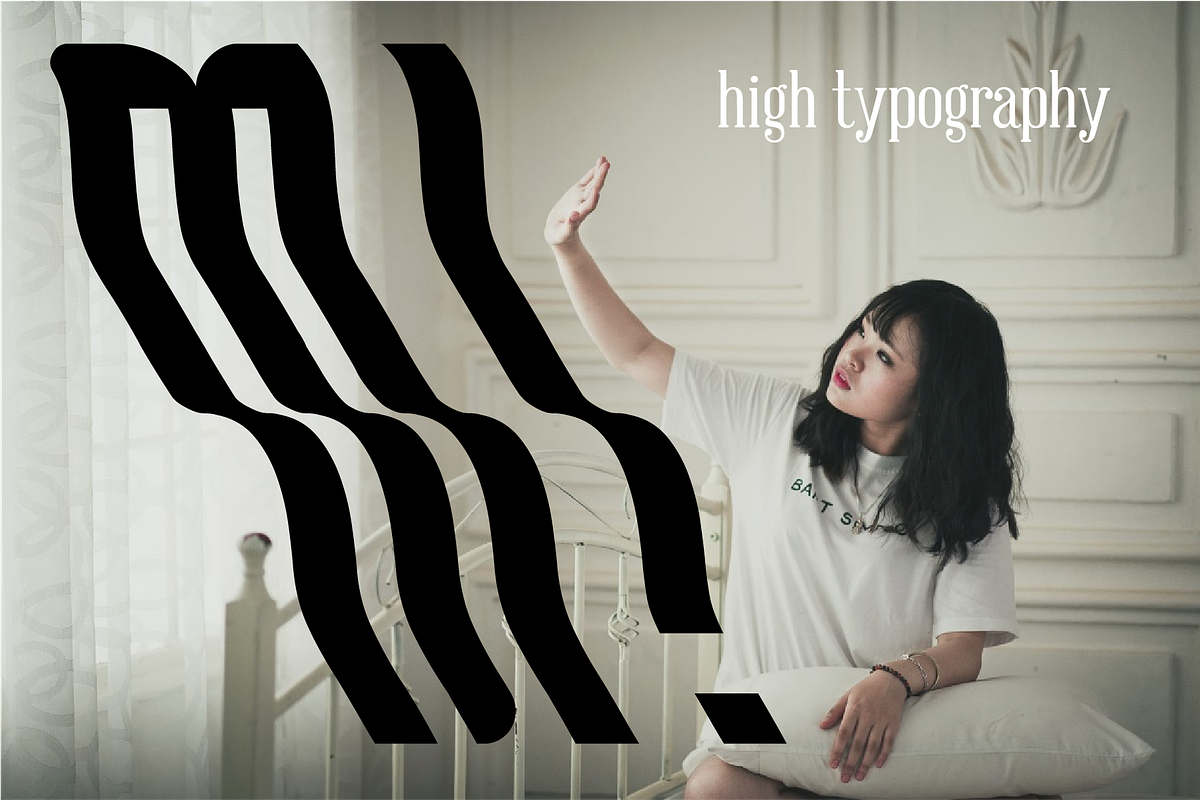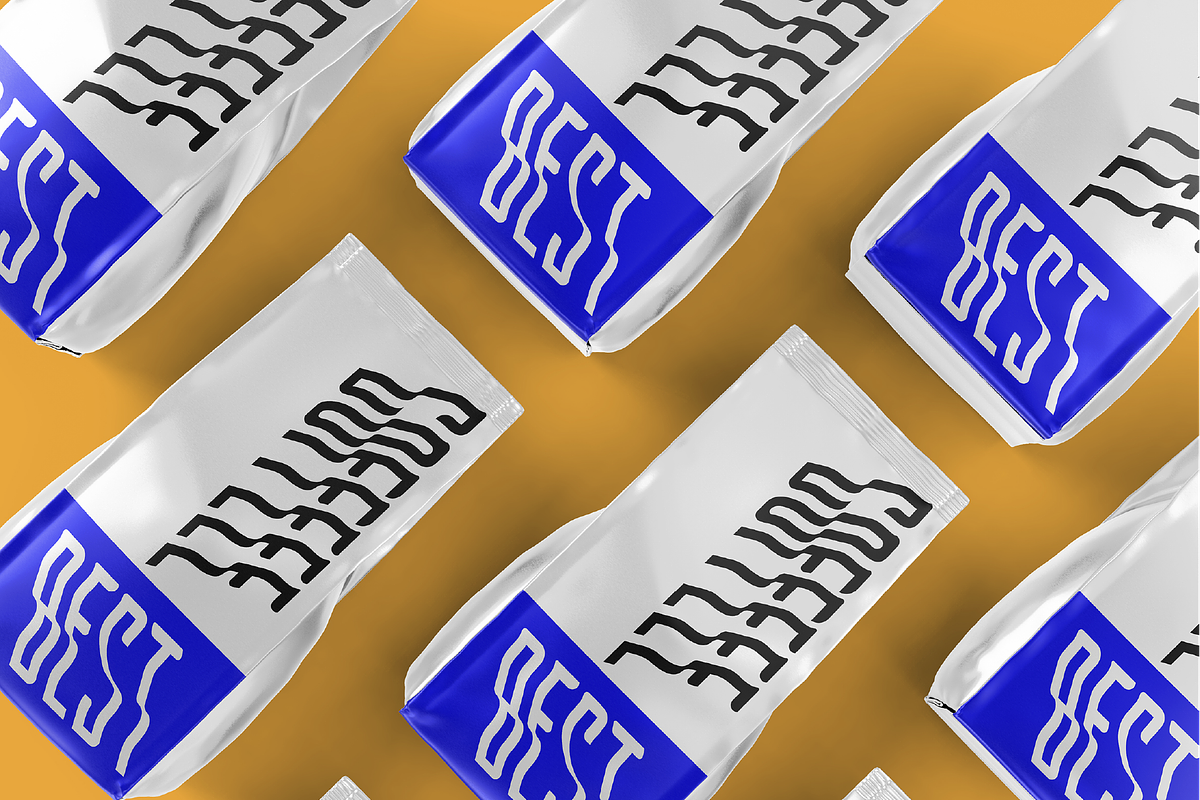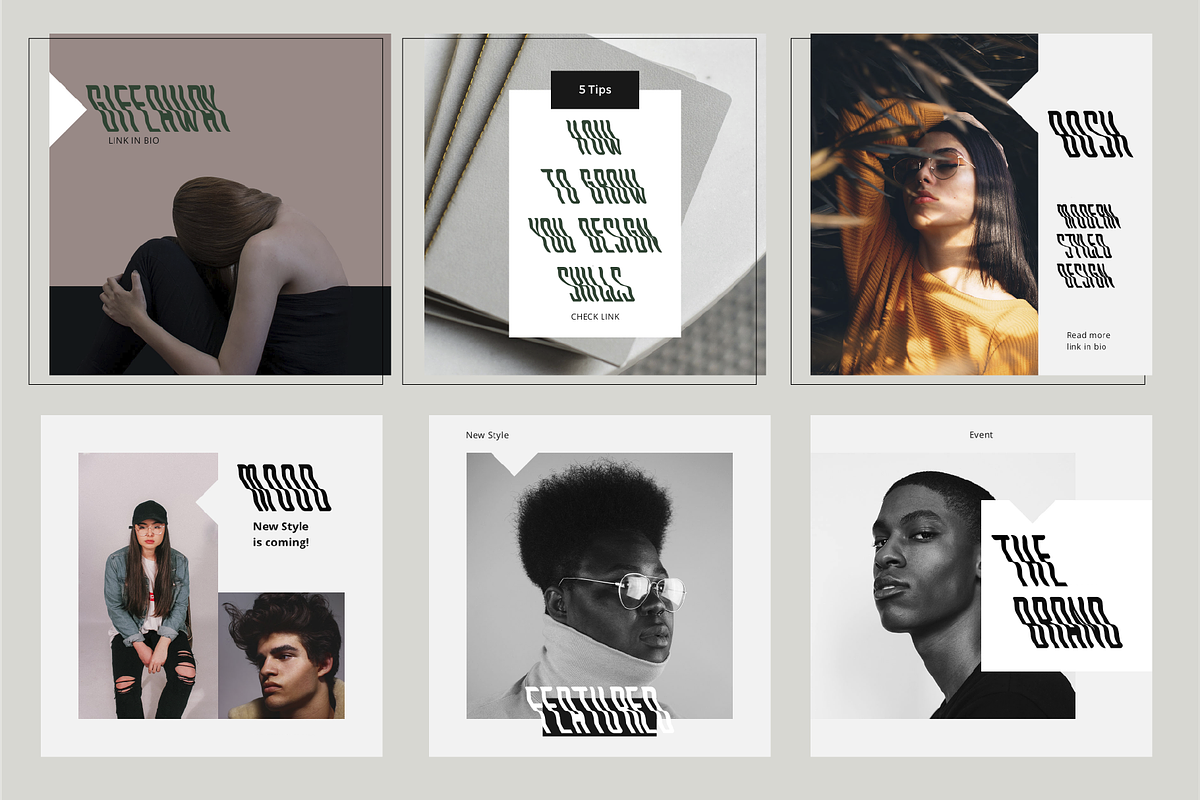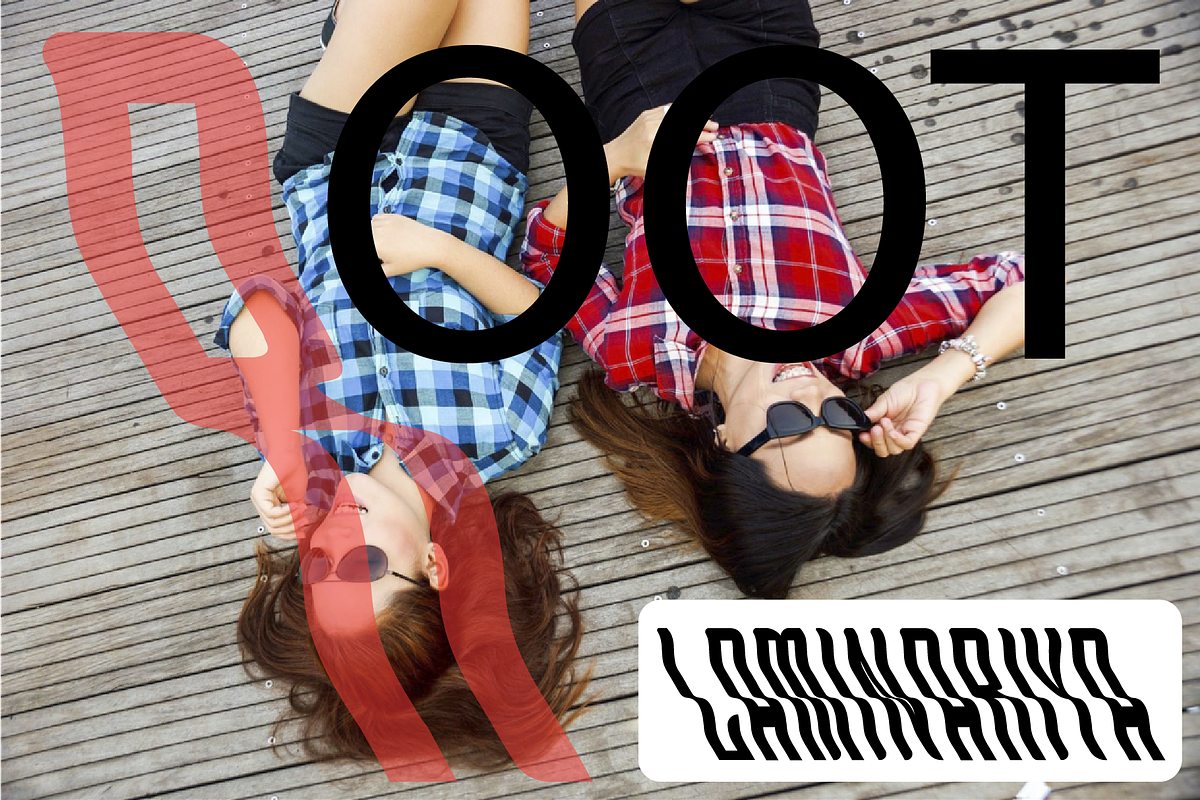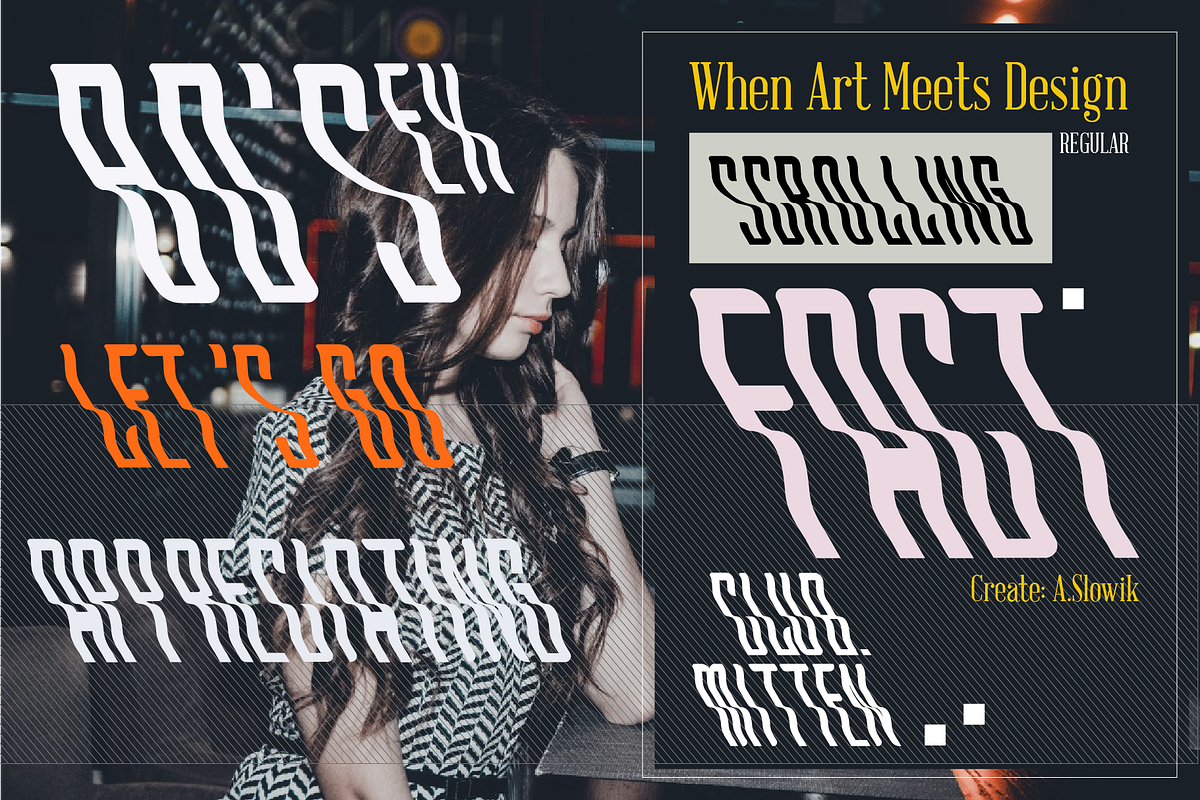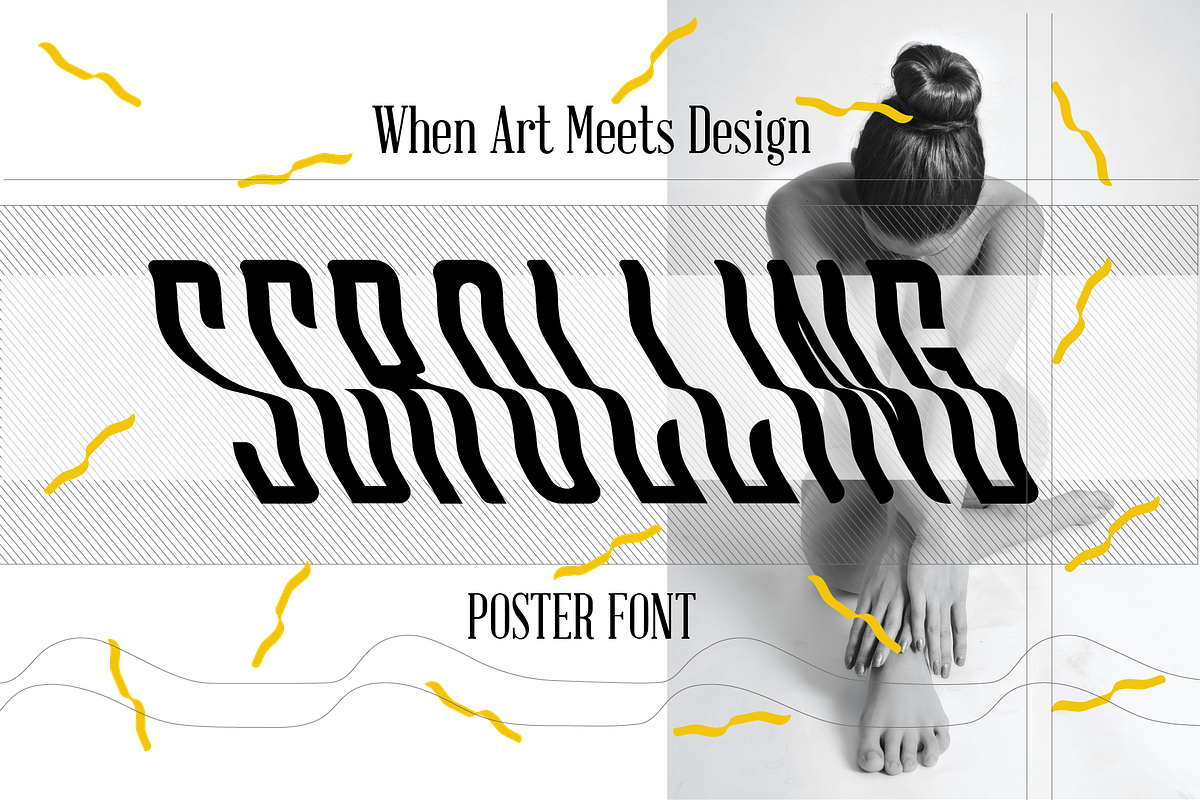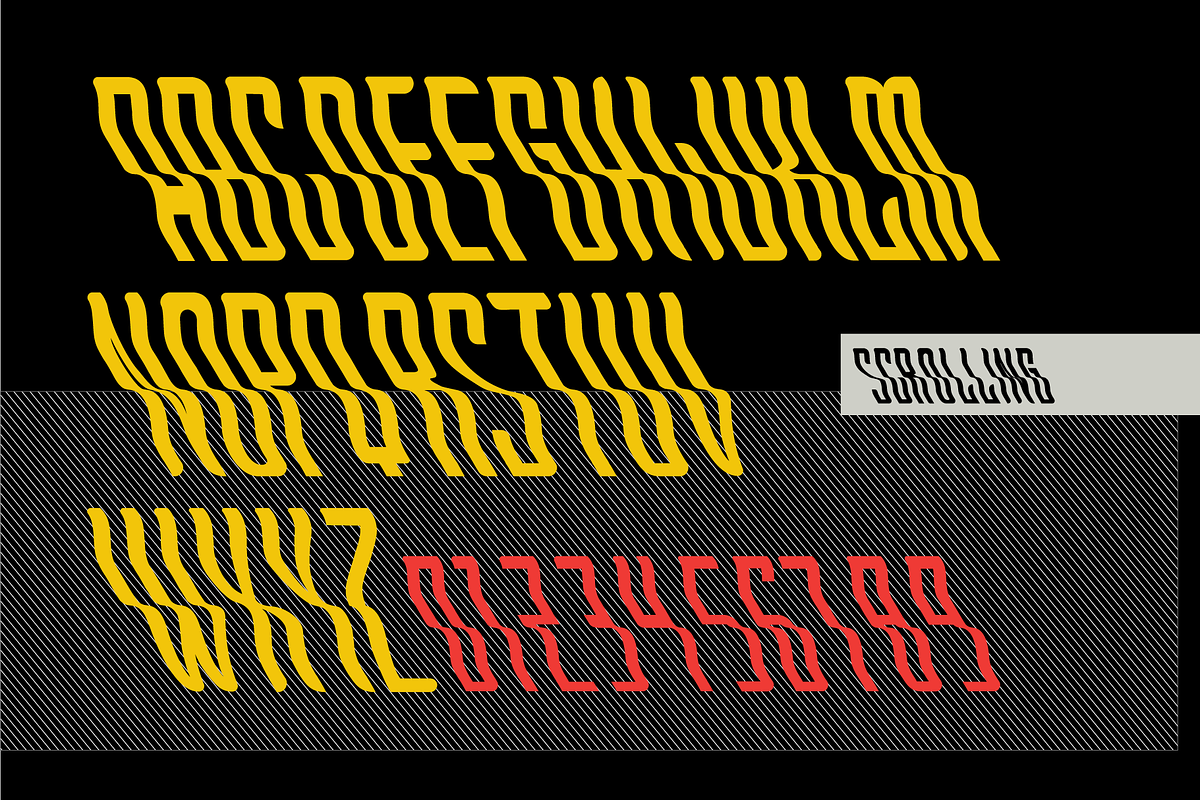
Scrolling font
Hello to all! I present to you my new font Scroll. ▲
I created it specifically for designer typography and professional layout. It is also great for posters and posts on social networks and will make your work professional, even if you are not a designer.
I did not have the task to create a full-fledged font with all the characters, such as percentages or a dollar sign. However, the font contains all used letters, numbers and punctuation marks.
The font is ideal for headings, but it will not suit you as the main one for writing a book.